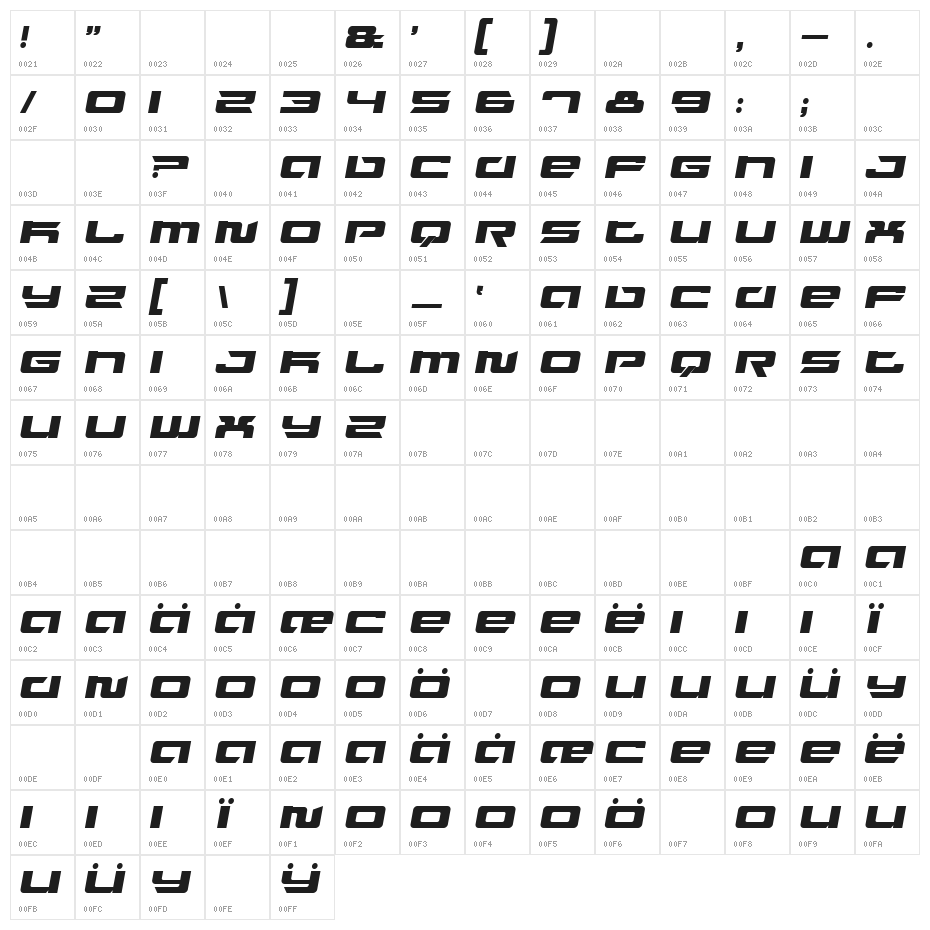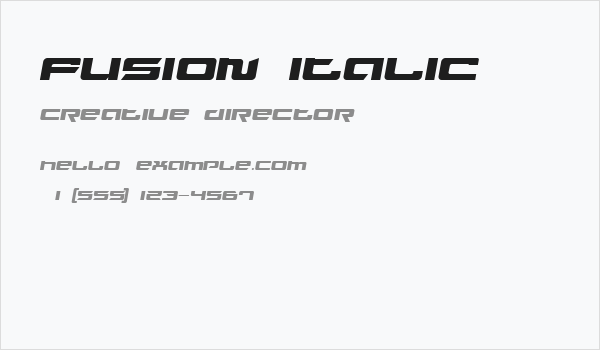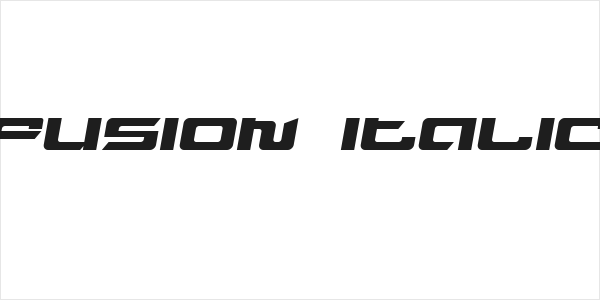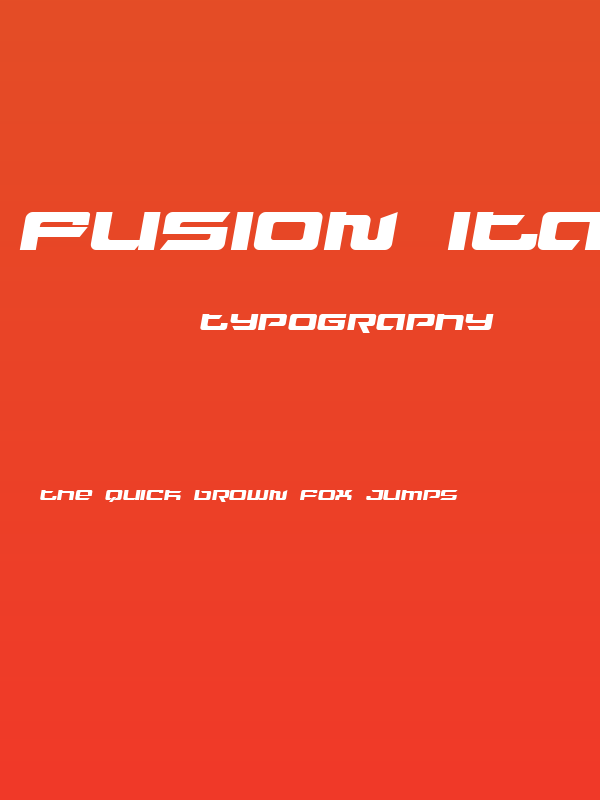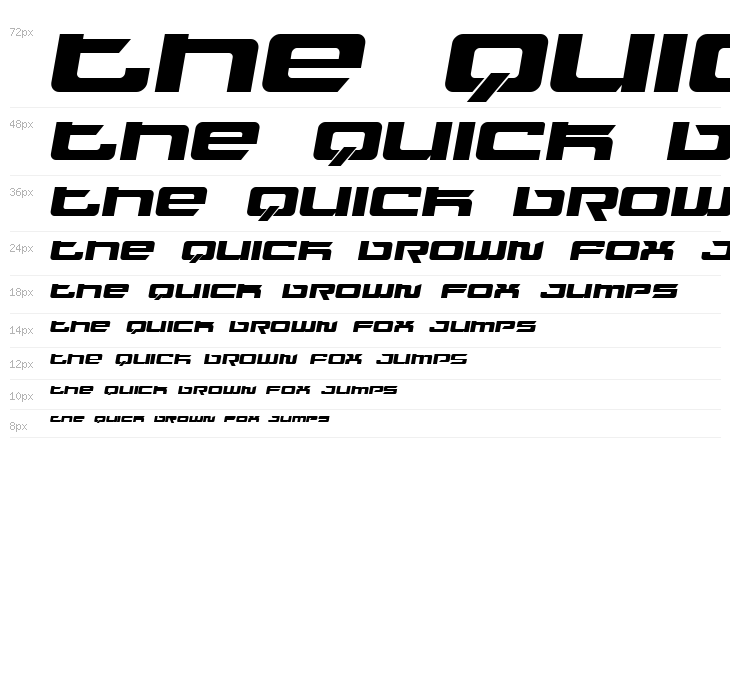
Fusion Italic Font
Fusion Italic Description
This font features a modern, futuristic style with a distinct italic slant, giving it a dynamic and forward-moving appearance. The characters are bold and geometric, with sharp angles and a sleek design that suggests speed and innovation. The uppercase and lowercase letters maintain a consistent style, while the numerals and special characters complement the overall aesthetic. The font's unique structure makes it stand out, ideal for projects that require a contemporary and edgy look.
| Proposed Projects | Ideal for technology branding, sci-fi posters, video game titles, and modern advertising campaigns. |